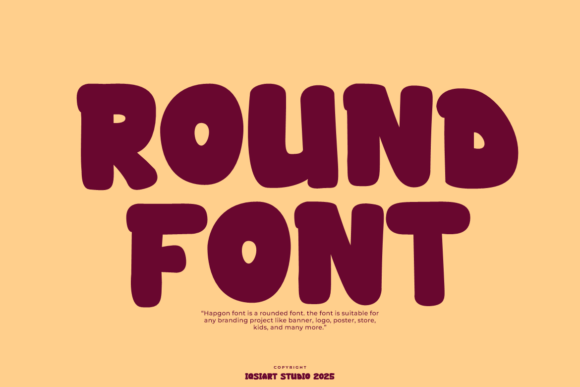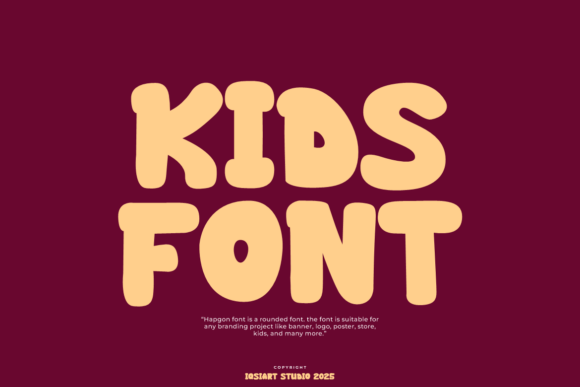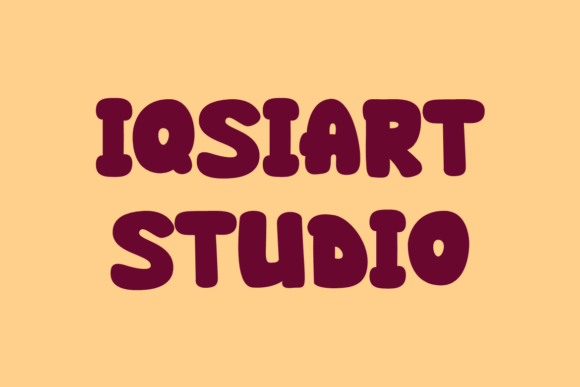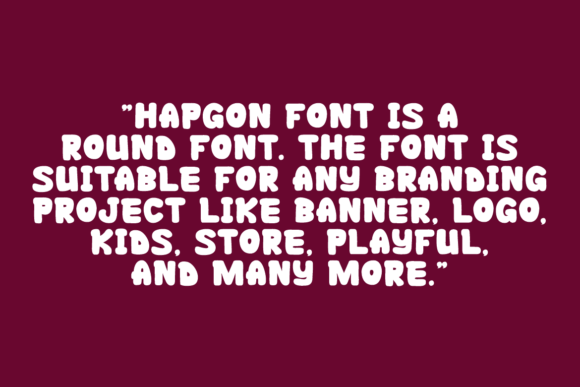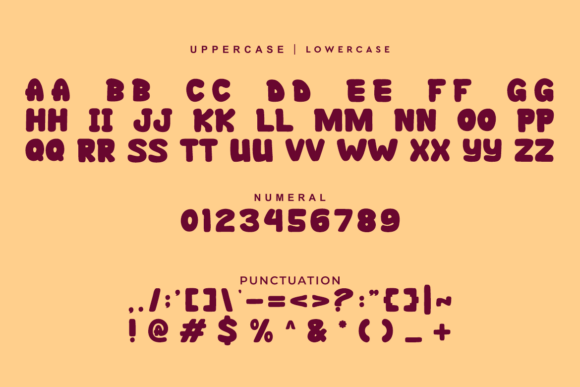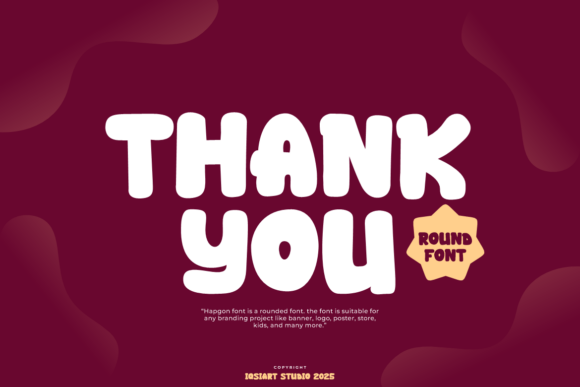
Bring Warmth and Friendliness to Your Designs with Hapgon Font
Are you looking for a font that can add a touch of warmth and friendliness to your designs? Look no further than Hapgon, a soft, rounded display font that’s full of bubbly charm. With its chunky letterforms and smooth curves, Hapgon is the perfect choice for designers and crafters who want to create joyful and engaging content for kids’ products, cute branding, and packaging.
The Characteristics of Hapgon Font
Hapgon font is a unique and eye-catching typeface that’s designed to make a statement. Its chunky letterforms are carefully crafted to be both bold and playful, making it perfect for headlines, titles, and short phrases. The smooth curves and rounded edges of the font give it a friendly and approachable feel, making it ideal for designs that need to convey a sense of warmth and approachability.
Perfect for Kids’ Products and Cute Branding
Kids’ products and cute branding require a font that’s both fun and engaging. Hapgon font delivers on both counts, with its bubbly charm and playful personality making it perfect for designs that need to appeal to kids and adults alike. Whether you’re creating packaging for a children’s toy, designing a logo for a kids’ clothing brand, or developing a brand identity for a children’s entertainment company, Hapgon font is the perfect choice.
Joyful Packaging and Beyond
Hapgon font is not just limited to kids’ products and cute branding. Its joyful and playful personality makes it perfect for a wide range of design applications, including packaging, posters, flyers, and more. Whether you’re creating a one-of-a-kind craft project or designing a large-scale marketing campaign, Hapgon font is sure to bring a smile to your audience’s face.
Why Choose Hapgon Font?
So why choose Hapgon font for your next design project? Here are just a few reasons:
- Unique and eye-catching: Hapgon font is a one-of-a-kind typeface that’s sure to grab attention and make your designs stand out.
- Warm and friendly: The smooth curves and rounded edges of the font give it a warm and friendly feel that’s perfect for designs that need to convey a sense of approachability.
- Versatile: Hapgon font can be used for a wide range of design applications, from kids’ products and cute branding to joyful packaging and more.
- Easy to read: Despite its chunky letterforms, Hapgon font is surprisingly easy to read, making it perfect for designs that need to communicate a message quickly and effectively.
Tips for Using Hapgon Font
Here are a few tips for getting the most out of Hapgon font:
- Use it for headlines and titles: Hapgon font is perfect for grabbing attention and making a statement. Use it for headlines and titles to add a touch of warmth and friendliness to your designs.
- Pair it with a simple font: To create visual interest and add contrast to your designs, pair Hapgon font with a simple font for body copy and other secondary text.
- Experiment with colors: Hapgon font looks great in a wide range of colors, from bright and bold to soft and pastel. Experiment with different colors to find the perfect combination for your design.
In conclusion, Hapgon font is a unique and eye-catching typeface that’s perfect for designers and crafters who want to add a touch of warmth and friendliness to their designs. With its chunky letterforms, smooth curves, and playful personality, Hapgon font is the perfect choice for kids’ products, cute branding, joyful packaging, and more. So why not give it a try and see how it can bring a smile to your audience’s face?